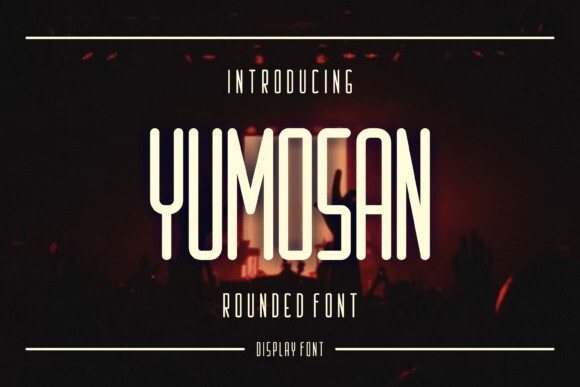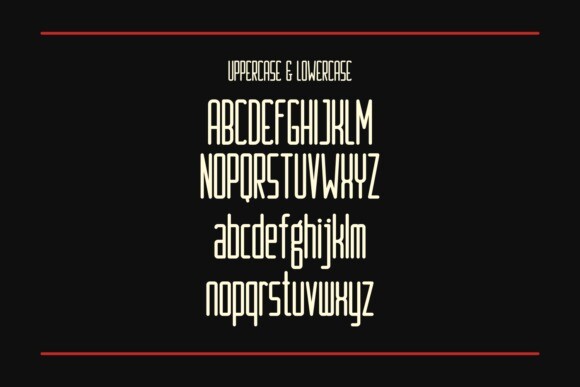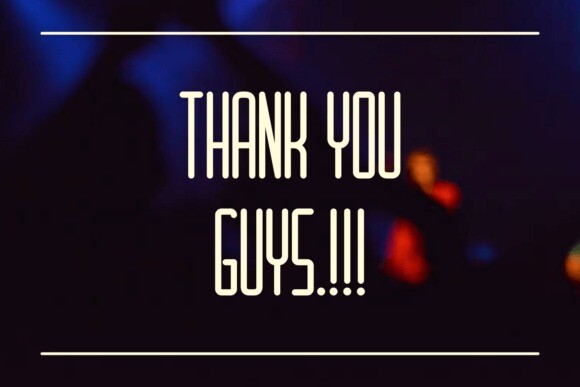
Yumosan Font
Yumosan Font is a bold and assertive rounded sans serif font. No matter the topic, this font will be an incredible asset to your fonts’ library, as it has the potential to elevate any creation.